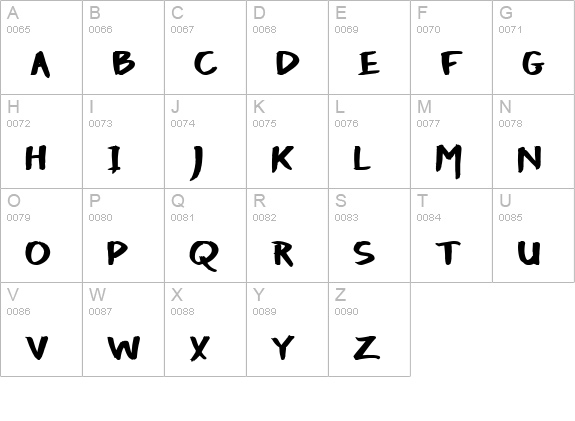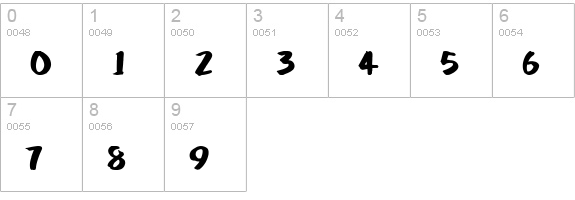
CK Marker Font Details
Introducing CK Marker font, a fun and playful typeface perfect for adding a touch of creativity to your designs. This hand-drawn font exudes character and charm, making it ideal for projects that require a touch of whimsy. The unique marker-style strokes give this font a handmade feel, adding a personal touch to any project. Best of all, CK Marker font is completely free to download at FontsMarket.com. Whether you're working on invitations, posters, or social media graphics, this font is sure to make your designs stand out. Embrace the creativity and versatility of CK Marker font today and bring your projects to life with its unique style and flair.